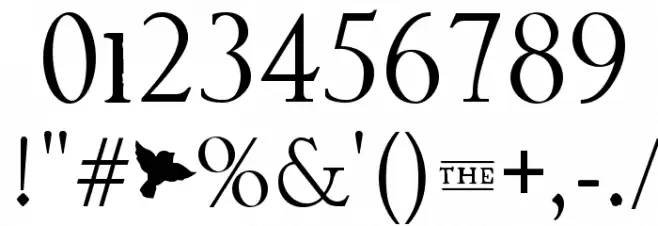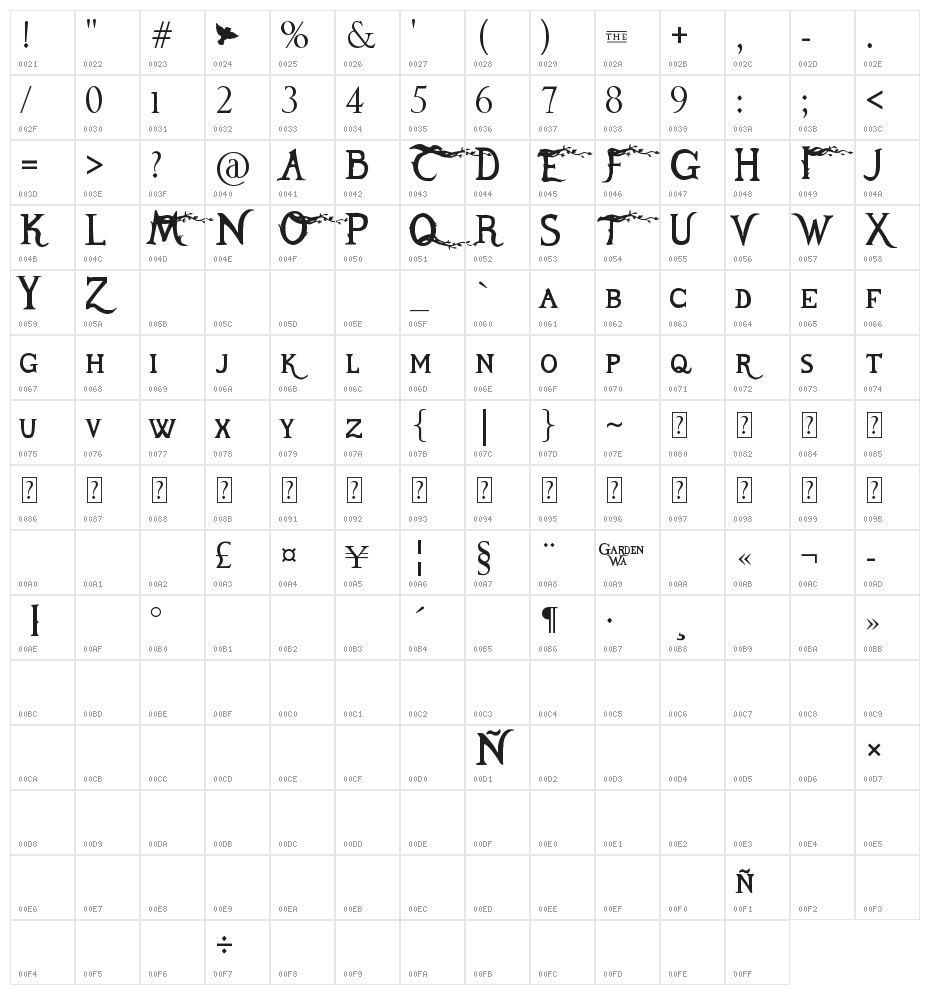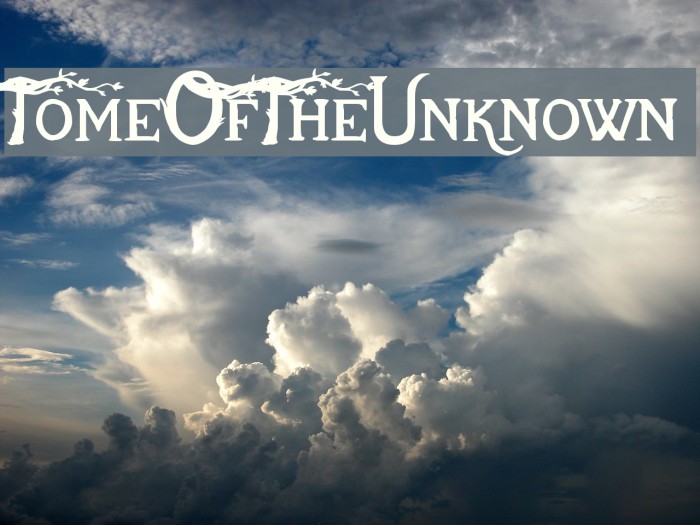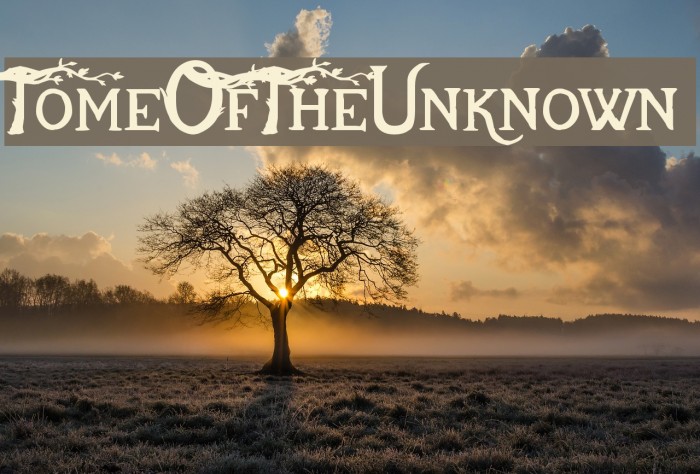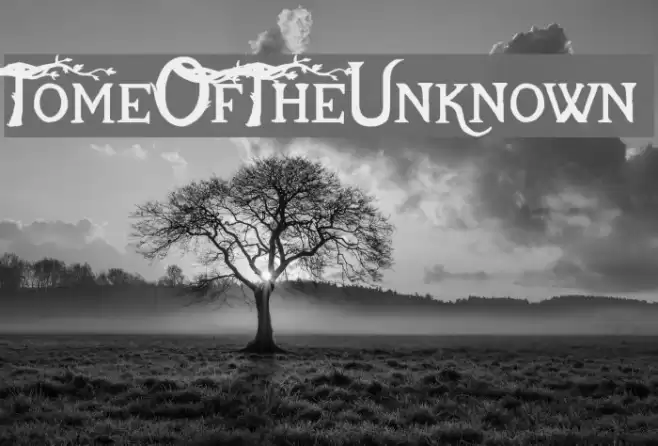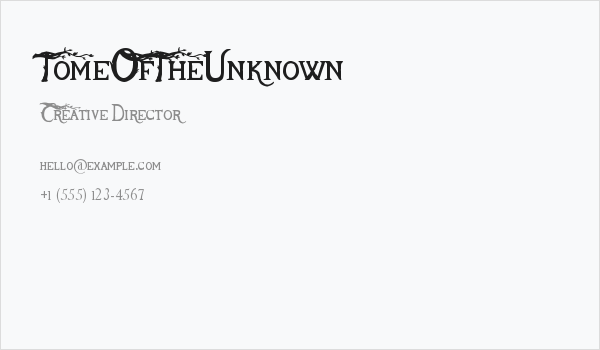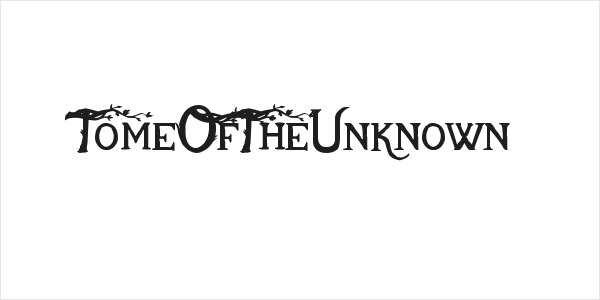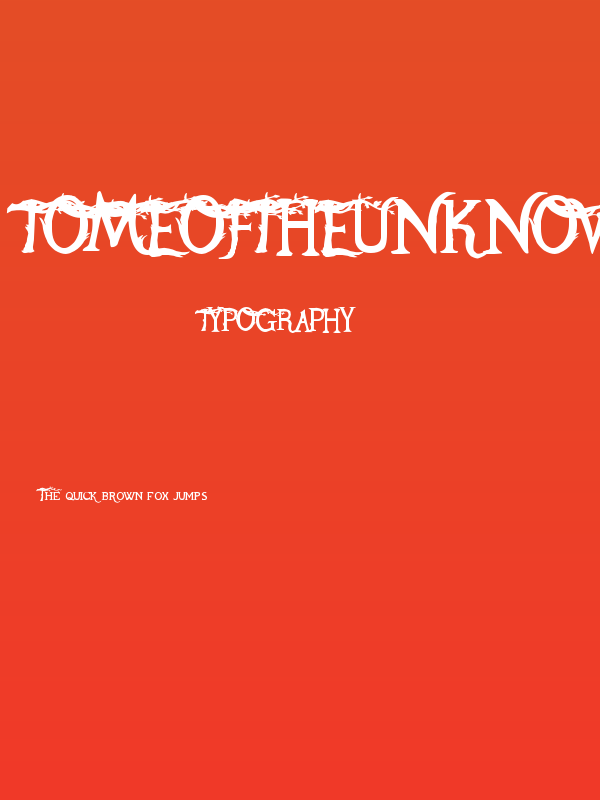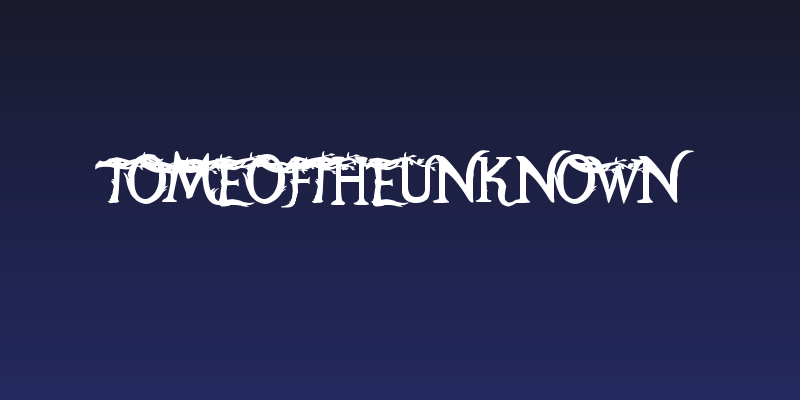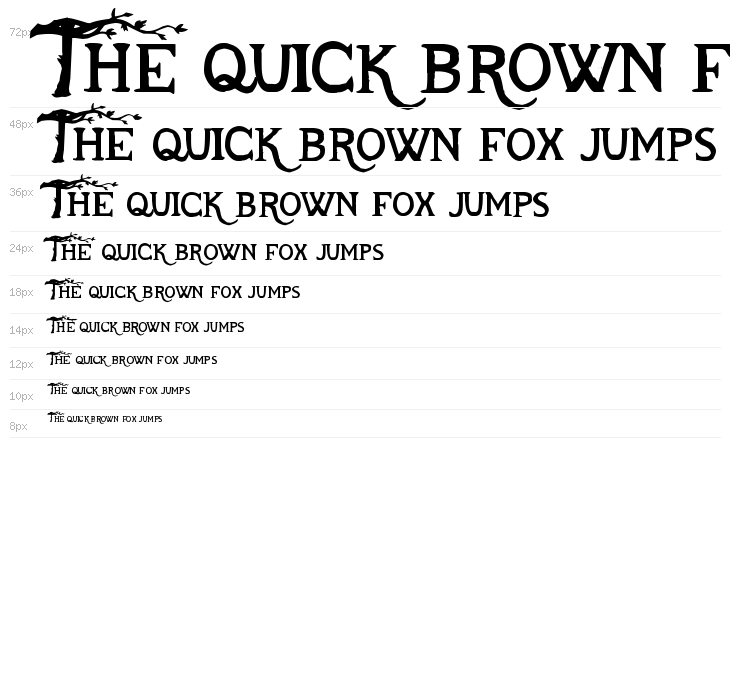
TomeOfTheUnknown Font
TomeOfTheUnknown Description
This font exudes a mysterious and enchanting aura, with its intricate and decorative elements that resemble twisting vines or branches. The uppercase letters are adorned with elaborate embellishments, giving them a whimsical and almost magical appearance. The lowercase letters maintain a more traditional serif style, providing a nice contrast to the ornate uppercase. The numbers are elegantly crafted, maintaining the overall theme of sophistication and mystery. Special characters are uniquely designed, with some featuring additional decorative elements that enhance the font's enchanting style. This font is perfect for projects that require a touch of fantasy or a gothic aesthetic.
| Overall Style | Decorative, Enchanting, Gothic |
| Proposed Projects | Ideal for fantasy book covers, gothic-themed posters, or any design needing a magical or mysterious touch. |